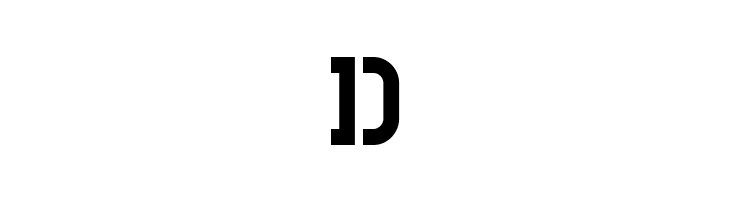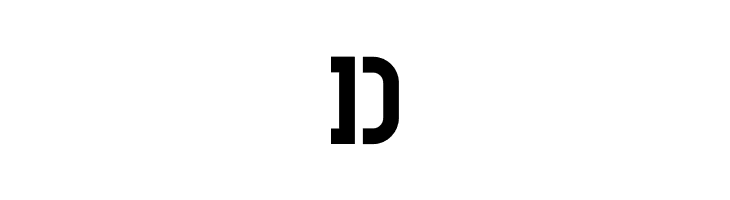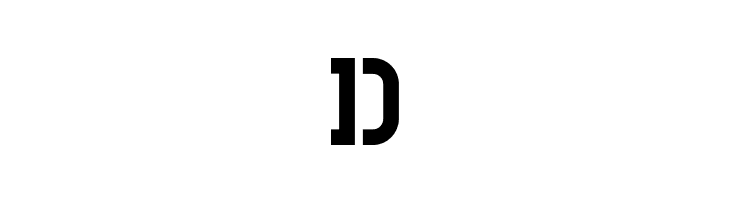
• WC Wunderbach Bta DemiBold
A bold, geometric stencil font with an industrial feel.
• WC Wunderbach Bta DemiBold
A bold, geometric font with a modern, stencil-like design.
• WC Wunderbach Perfo Bta
A bold, perforated font with an industrial, modern aesthetic.
• WC Wunderbach Rough Bta
A bold, textured font with a rough, hand-drawn appearance.
• WC Wunderbach Rough Bta
A bold, textured font with a rugged, hand-drawn appearance.
• WC Wunderbach Rounded
A bold, geometric stencil font with rounded edges and a modern industrial style.
• WC Wunderbach Spider
A decorative font with spiky, starburst-like extensions for a dramatic effect.
• WC Wunderbach Wimpern
A bold, spiky font with dramatic, jagged edges for a striking visual impact.
• WCWunderbachBta-DemiBold
A bold, geometric font with a modern, industrial stencil design.
• WCWunderbachRoughBta
A bold, textured font with a rugged, sketch-like appearance.